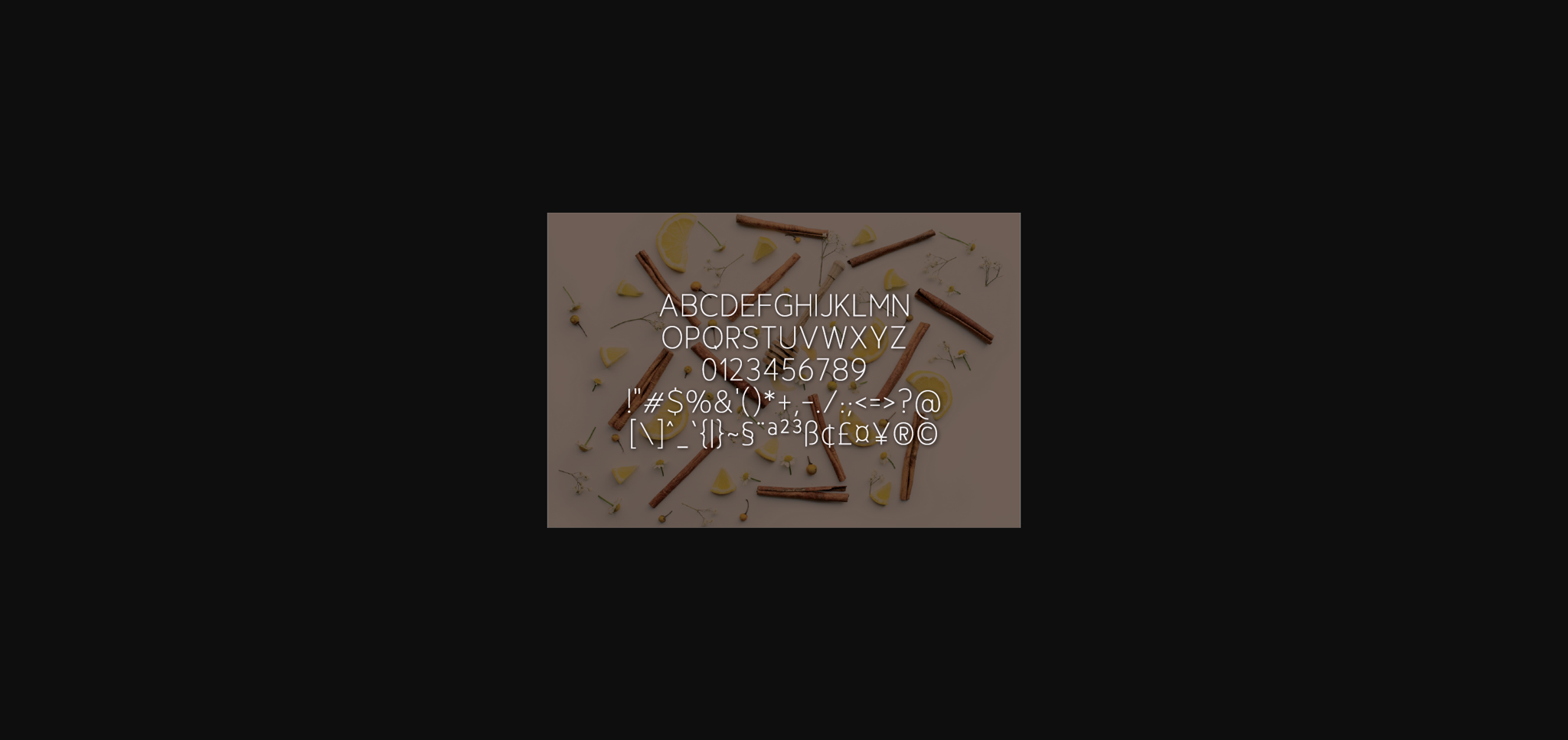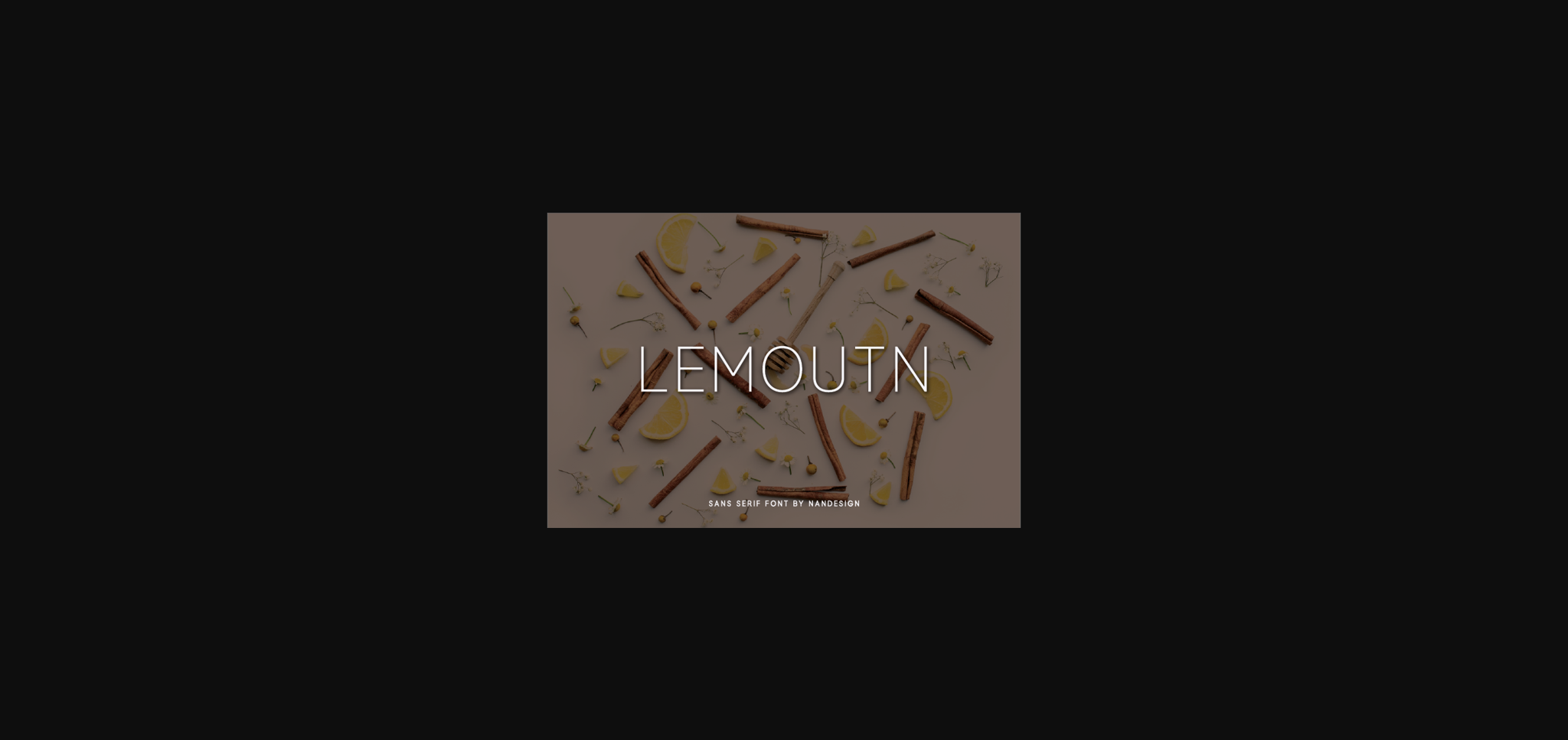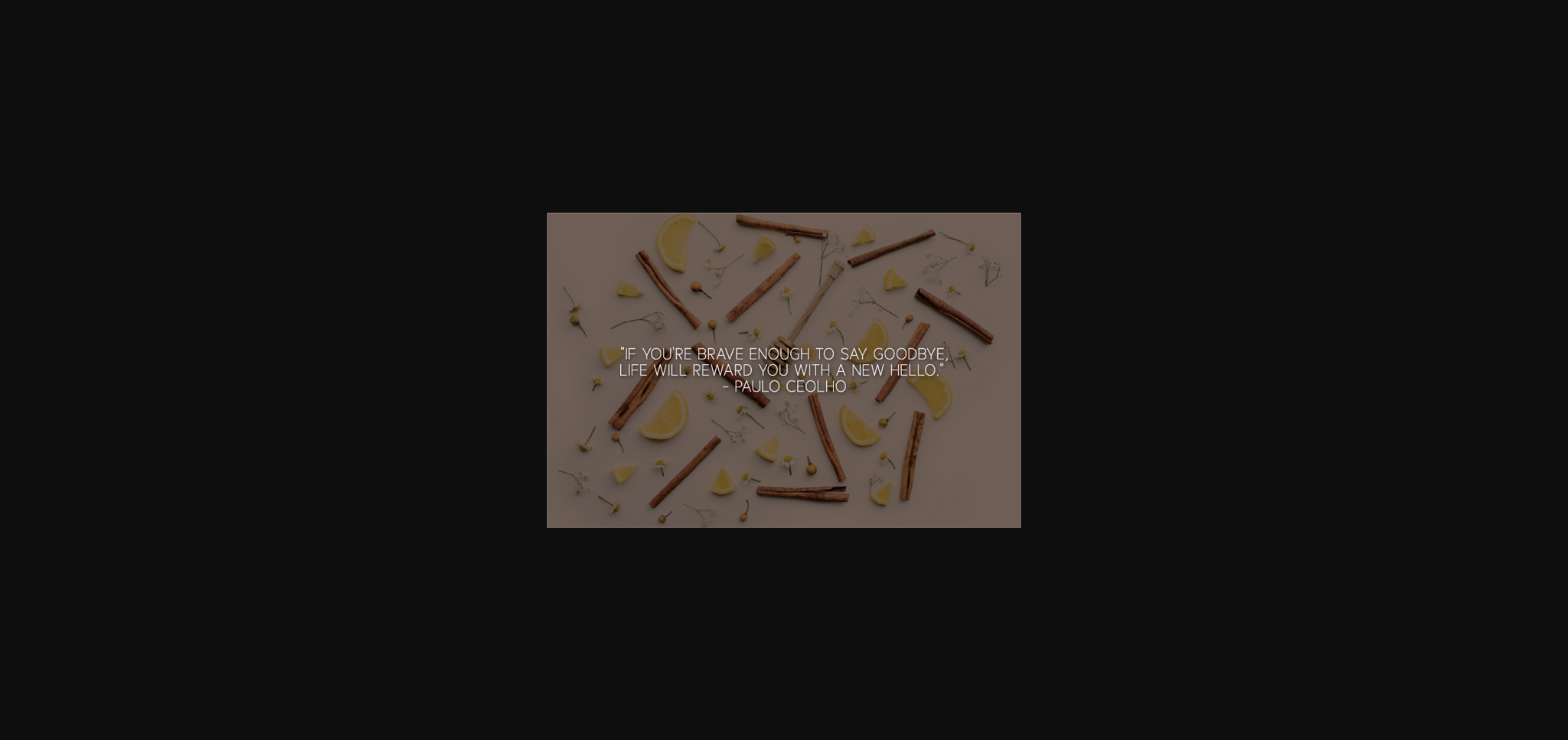
About Lemoutn Font
Lemoutn is a simple and thin sans serif font created to complement every project you’re working on.
It is perfect for displays, headers, invitations, save the dates, weddings, and so much more!